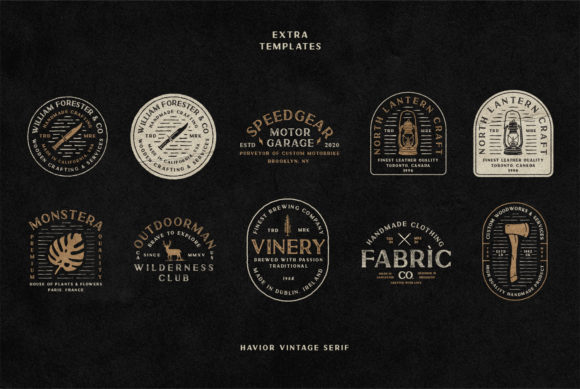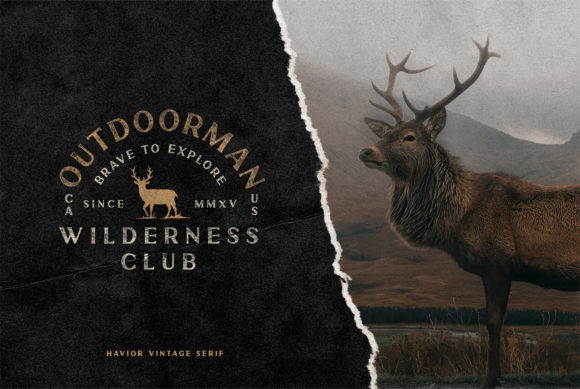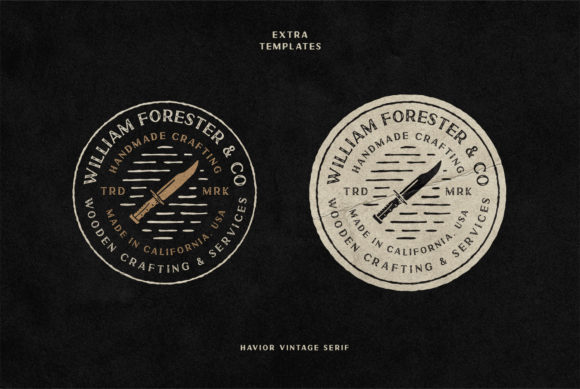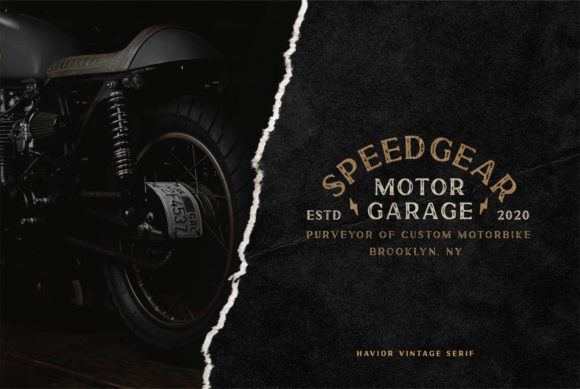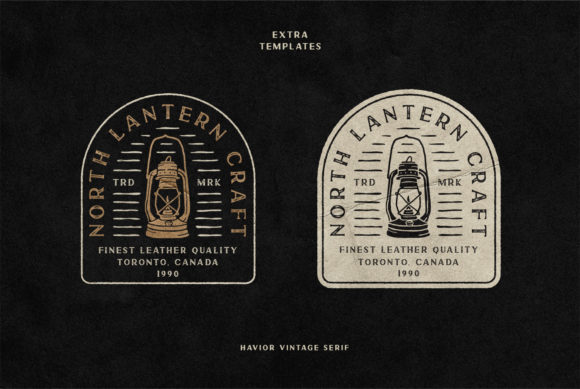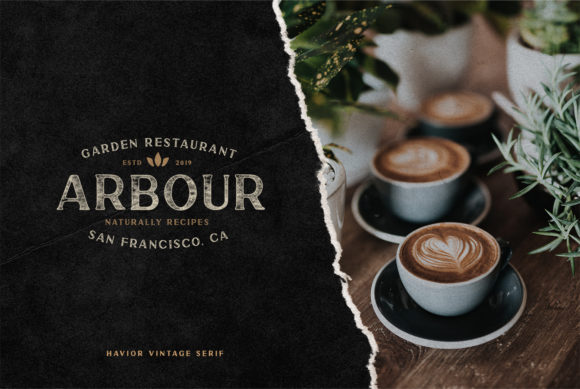
Havior Font: The Ultimate Display Font for Creative Ideas
In the world of typography, fonts play a crucial role in making or breaking the visual appeal of a design. When it comes to creating stunning visual content, designers and crafters are always on the lookout for unique and authentic fonts that can make their ideas stand out. If you’re one of them, then you’re in luck! Introducing Havior Font, a bold and authentic display font that’s about to take your creative projects to the next level.
The Power of Havior Font
Havior Font is a carefully crafted display font that’s designed to make a statement. Its bold and authentic style is perfect for adding a touch of personality to your designs, whether you’re working on a logo, a poster, or a social media graphic. With Havior Font, you can add a level of sophistication and elegance to your creative ideas, making them instantly stand out from the crowd.
Key Features of Havior Font
- Bold and Authentic Style: Havior Font boasts a bold and authentic style that’s perfect for making a statement.
- High-Quality Design: The font is carefully crafted with attention to detail, ensuring a high-quality design that’s perfect for professional use.
- Versatile: Havior Font is versatile and can be used for a wide range of design projects, from logos and posters to social media graphics and more.
- Easily Readable: Despite its bold style, Havior Font is easily readable, making it perfect for use in a variety of contexts.
How to Use Havior Font in Your Designs
Using Havior Font in your designs is easy! Here are a few tips to get you started:
- Pair it with Other Fonts: Havior Font pairs well with other fonts, making it easy to create stunning visual content. Try pairing it with a clean sans-serif font for a contrasting look.
- Use it for Headlines: Havior Font is perfect for use in headlines, where its bold style can make a statement.
- Experiment with Colors: Don’t be afraid to experiment with different colors when using Havior Font. Its bold style looks great in a variety of colors, from bold brights to muted pastels.
Benefits of Using Havior Font
So, why should you choose Havior Font for your design projects? Here are just a few benefits of using this amazing display font:
- Instantly Stand Out: With Havior Font, you can instantly make your designs stand out from the crowd.
- Professional Look: The font’s high-quality design gives your projects a professional look that’s sure to impress.
| Font Name | Havior Font |
| Author | Wandery Supply |